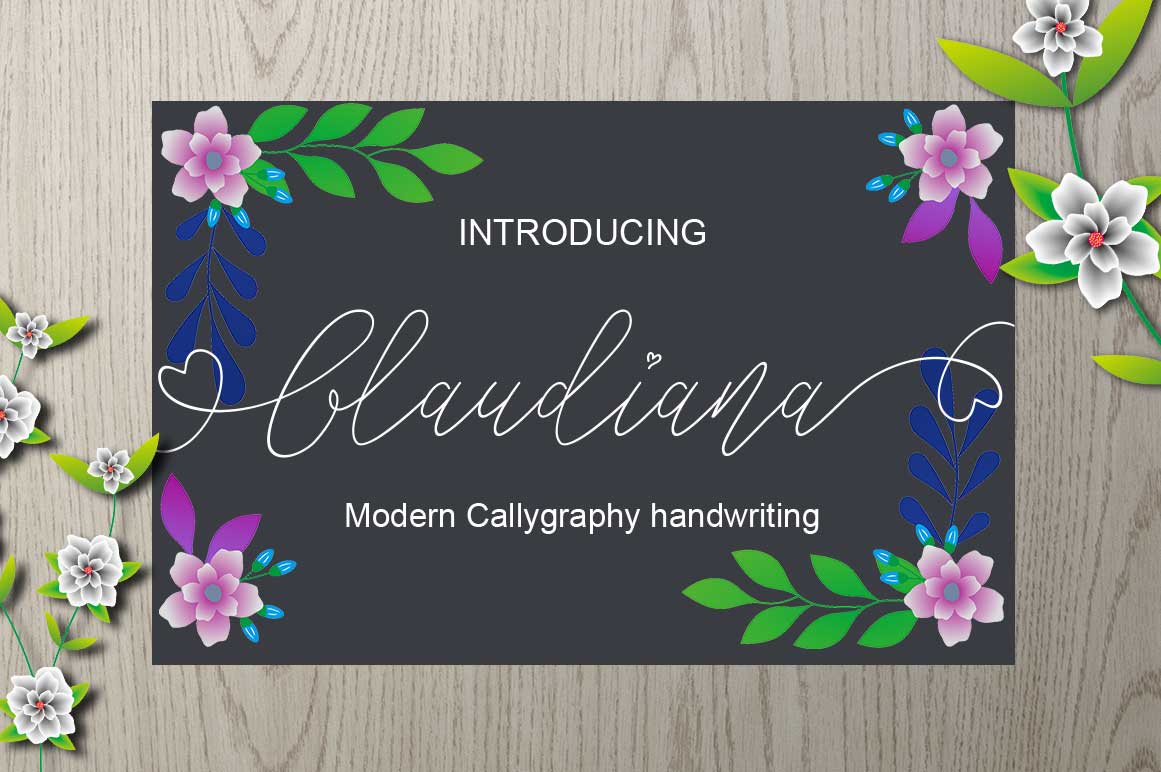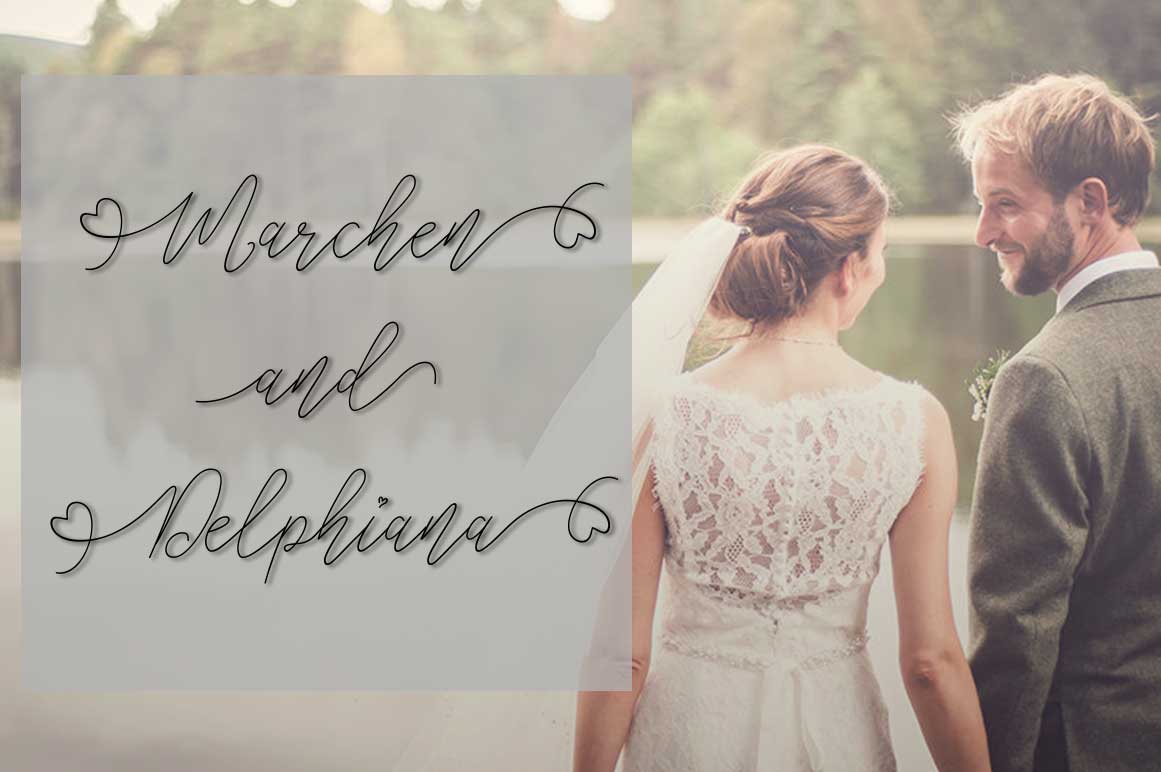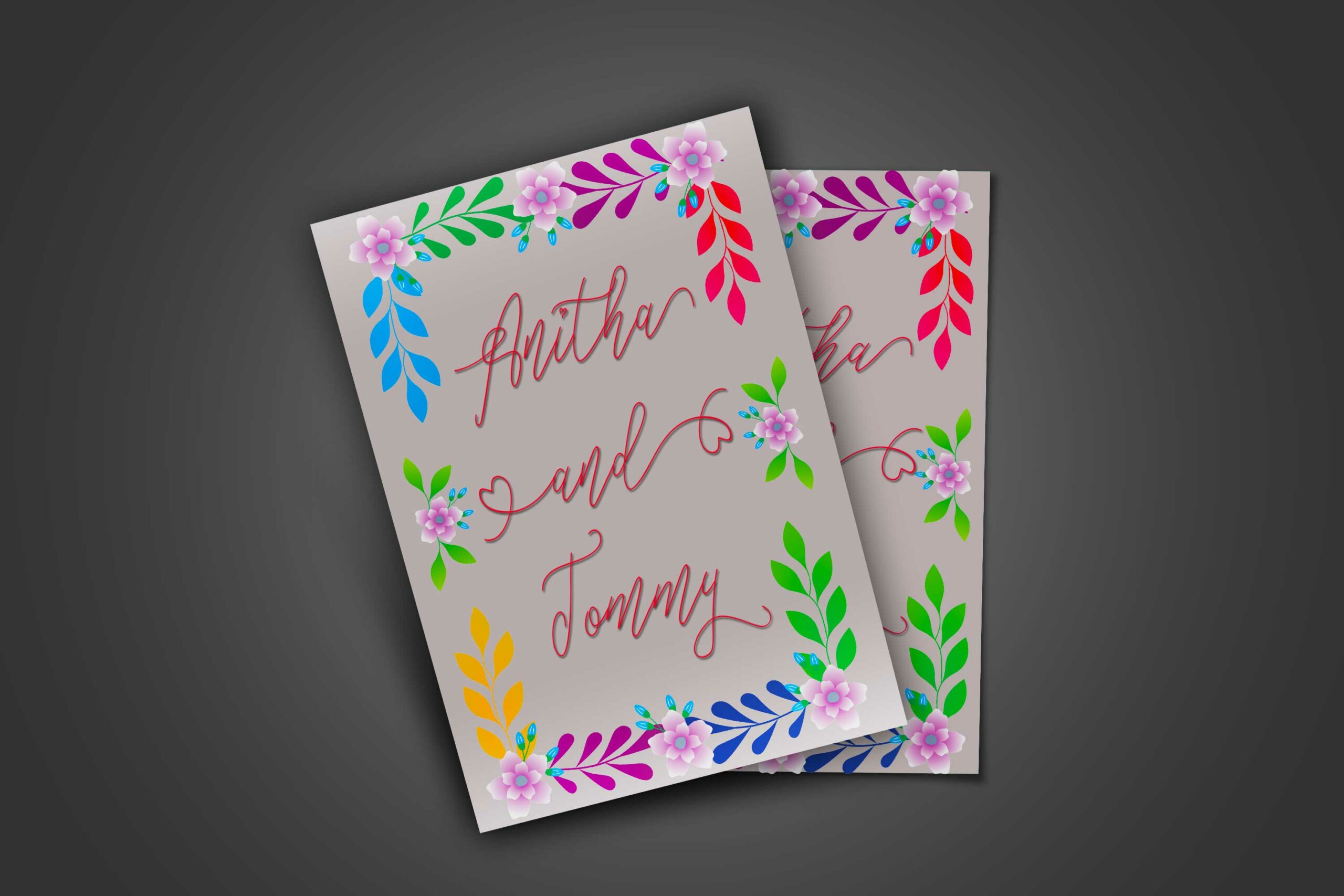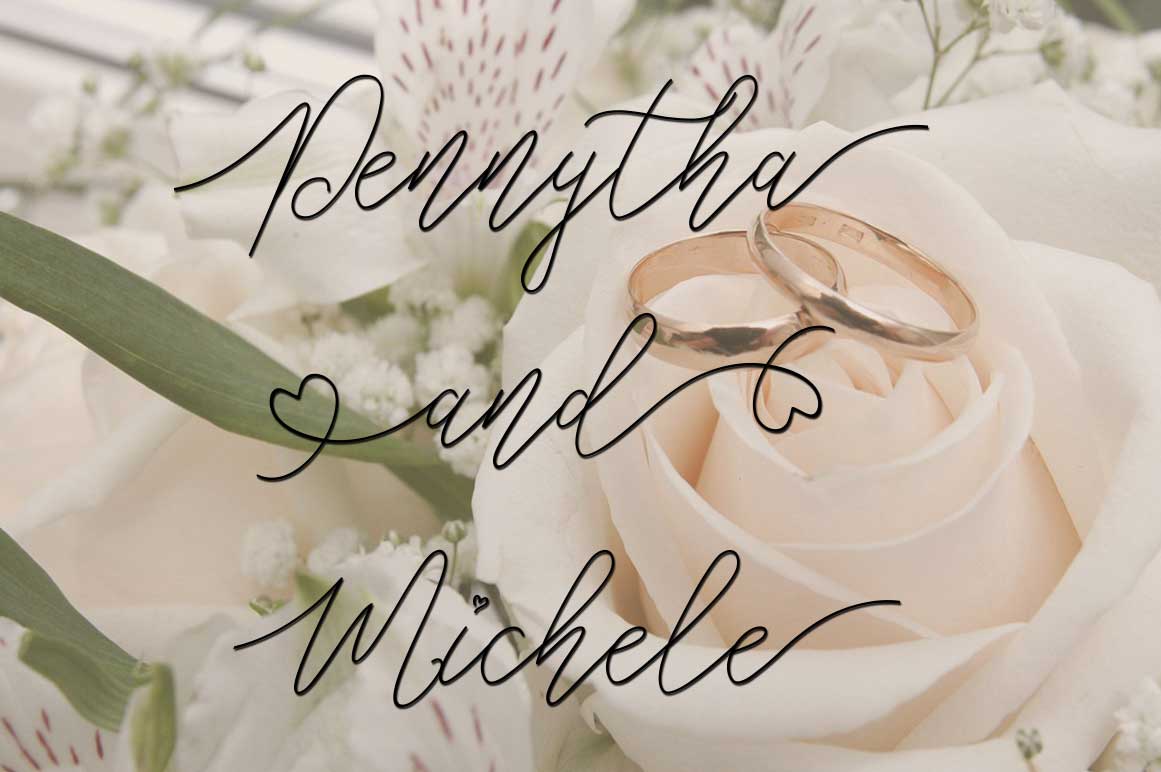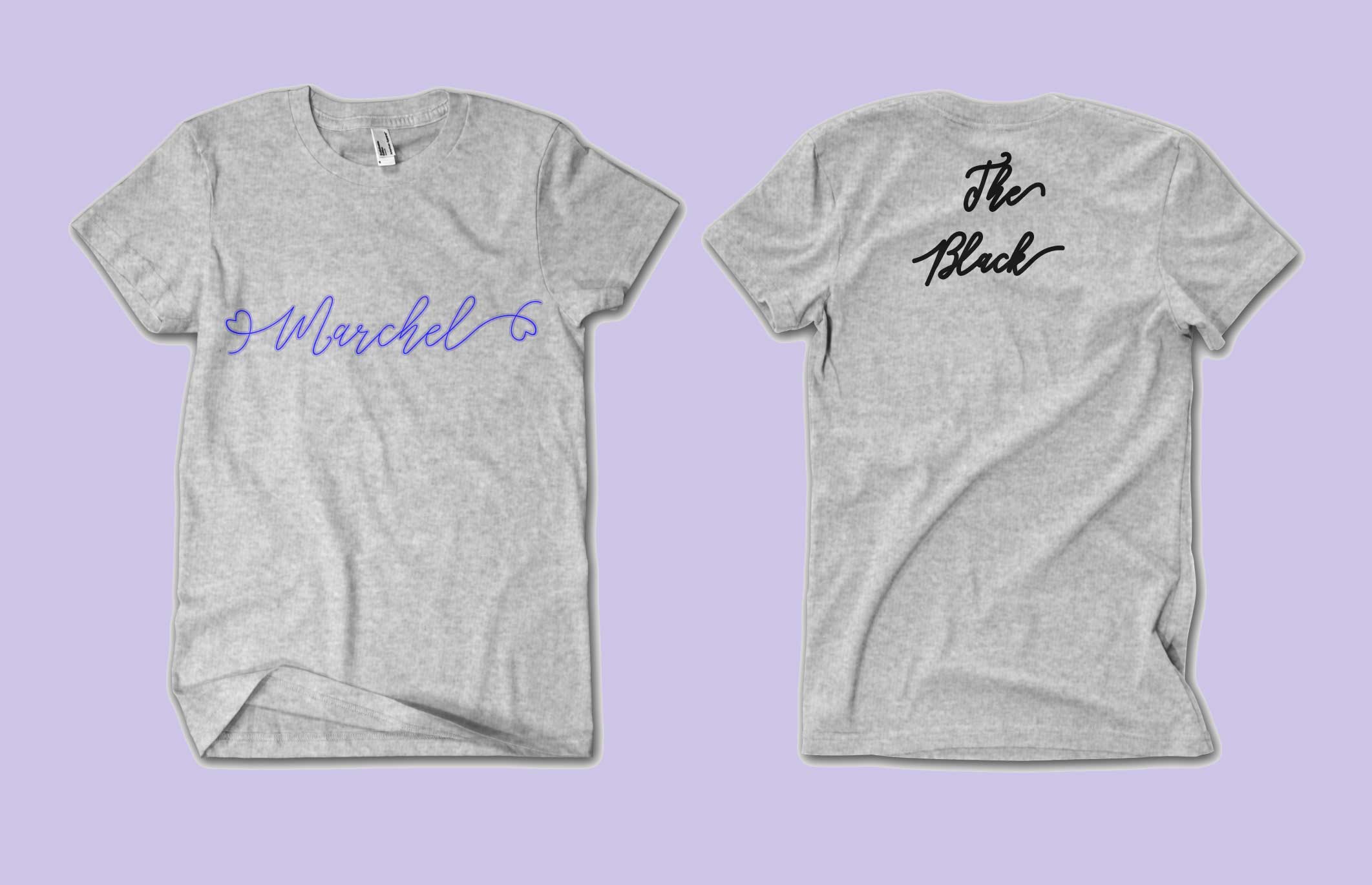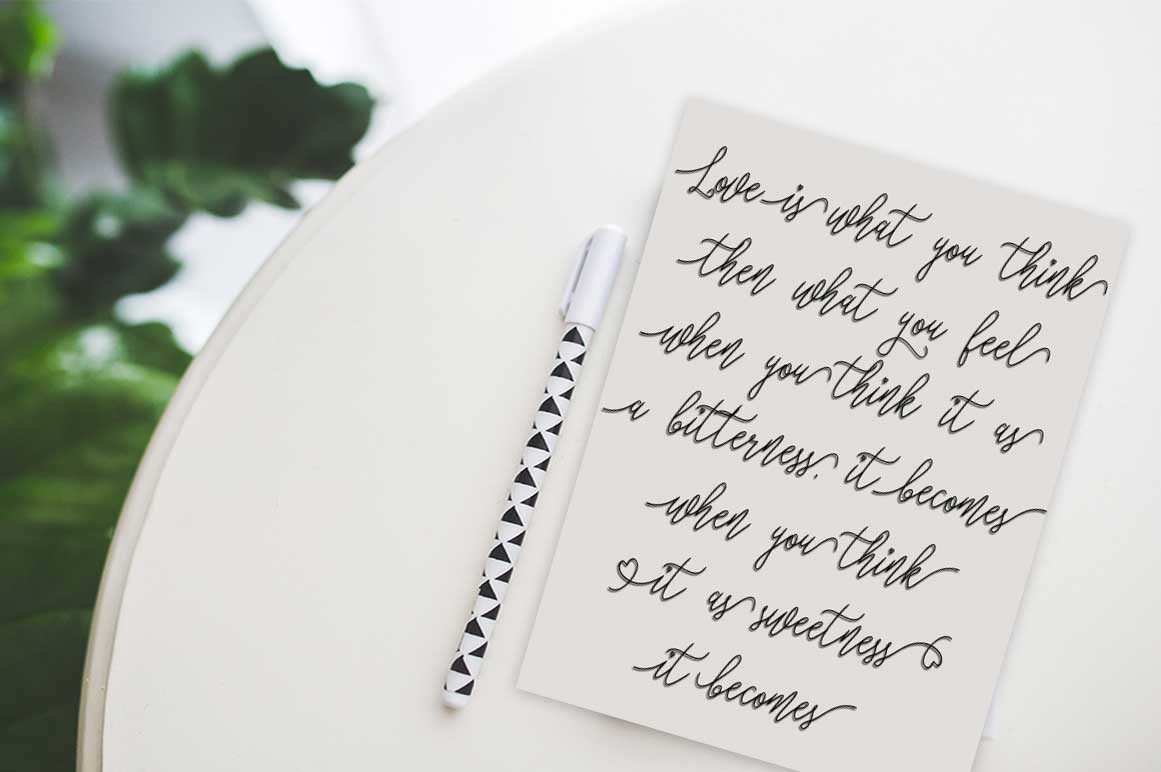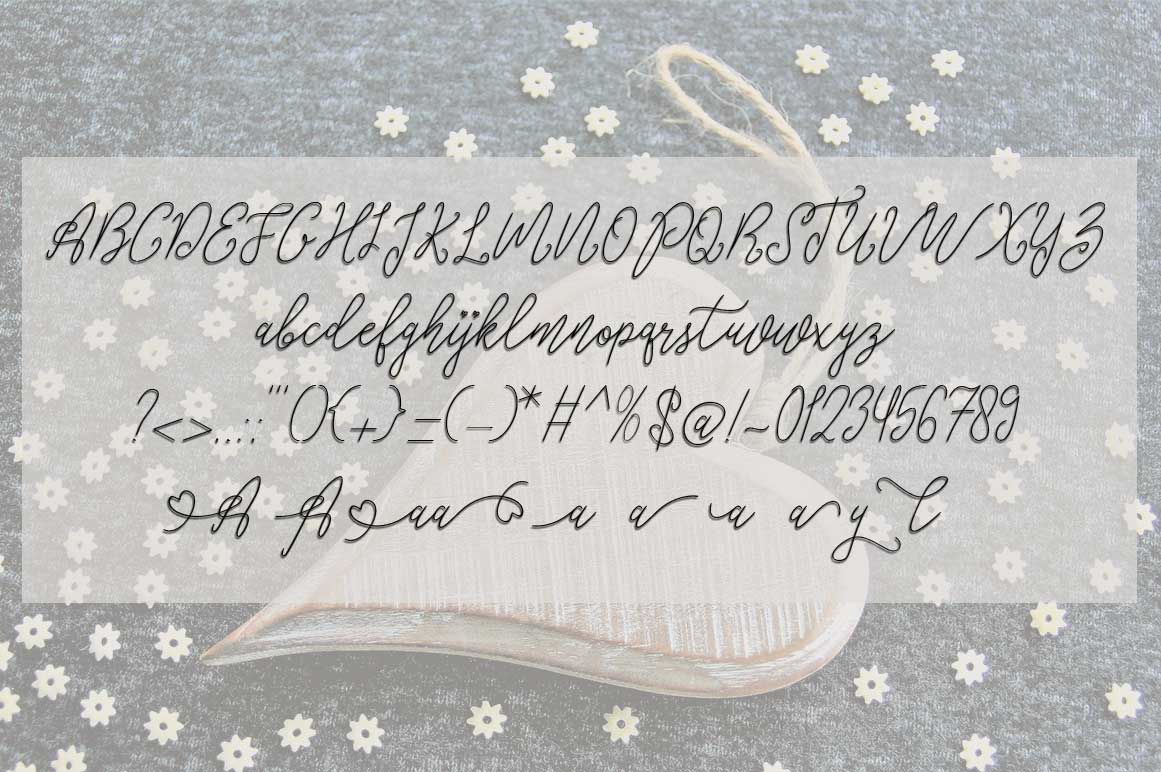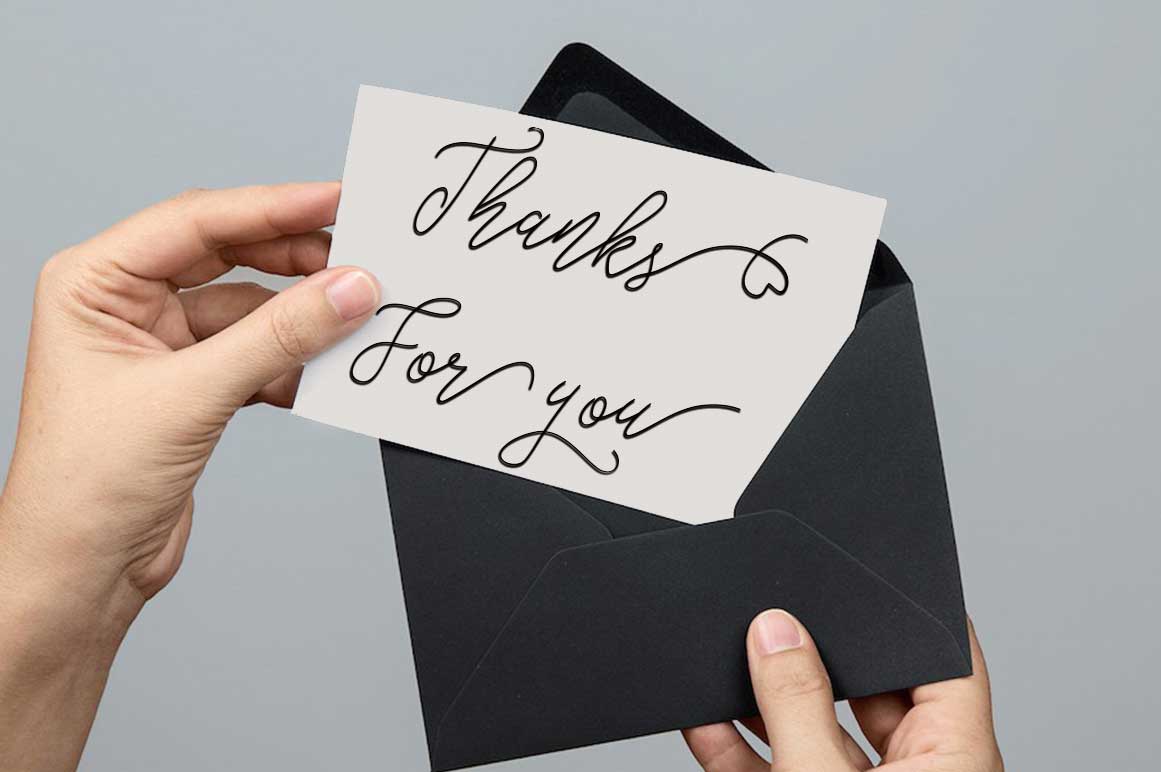
Glaudiana Font
About Glaudiana Font
Glaudiana is a beautiful, signature font with a clean style! This monoline font is casual yet sleek, and can add a ton of character to your designs.